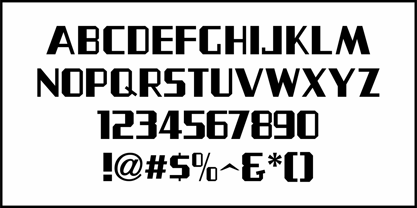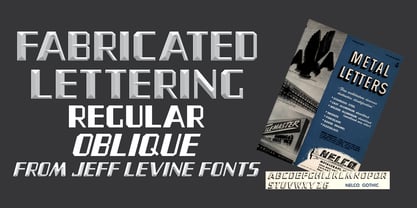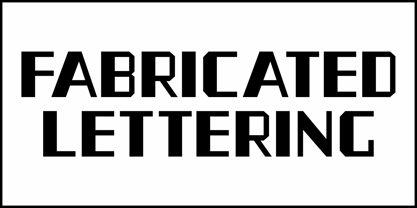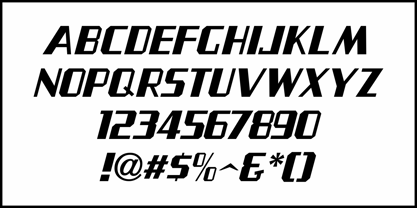
Fabricated Lettering JNL
by Jeff Levine
A 1959 catalog for F. T. Nelson's Nelco Metalcraft, Inc. of Chicago listed numerous styles of letters they could fabricate for custom signage.
One design in particular was called Nelco Gothic (by 1964 they had renamed it Nelco Broadway) consisting of an Art Deco influenced thick-and-thin sans serif with chamfered corners.
Originally available only in a slanted (oblique) style, this type style has been redrawn digitally as Fabricated Lettering JNL and is available in both regular and oblique versions.